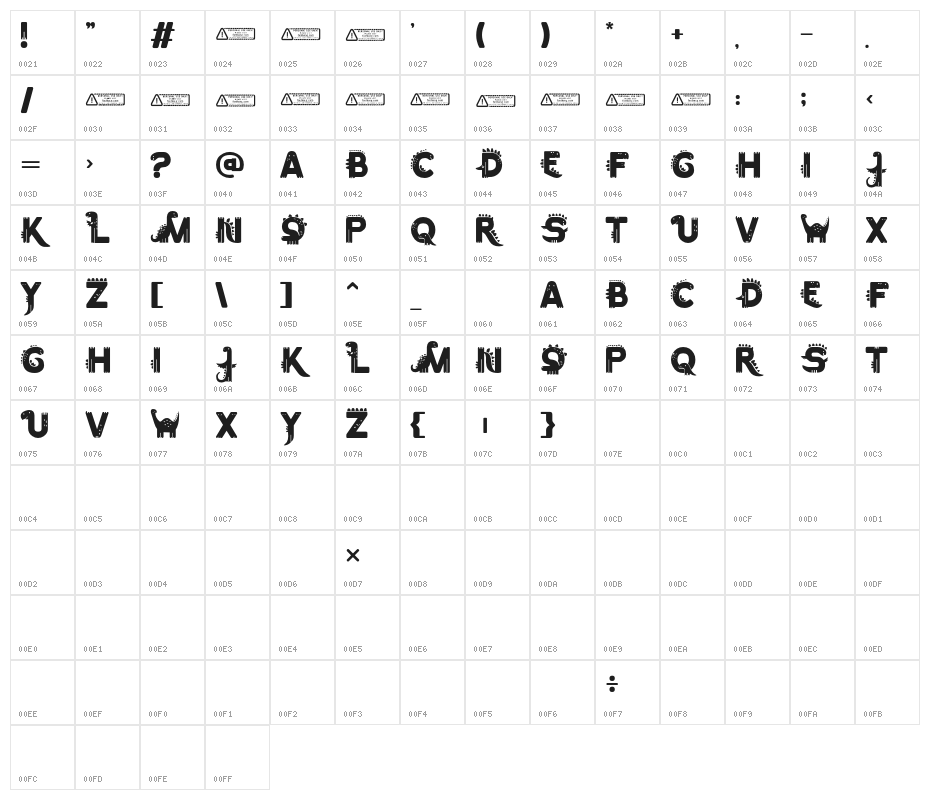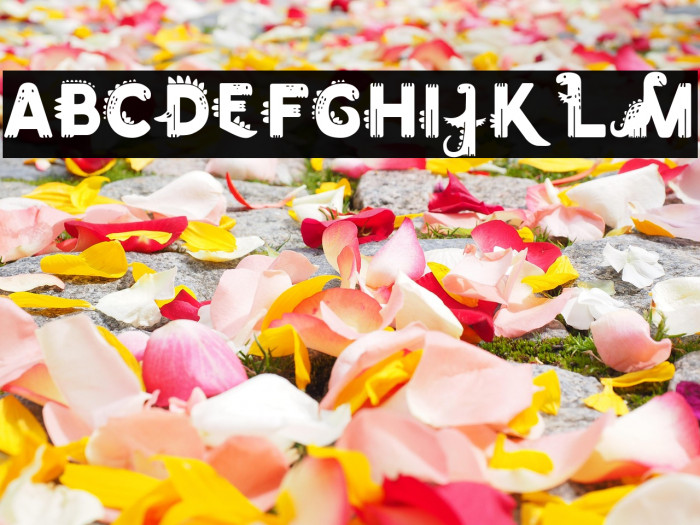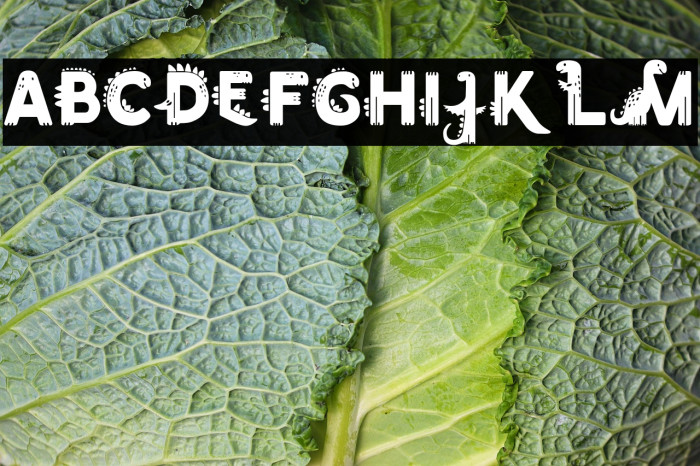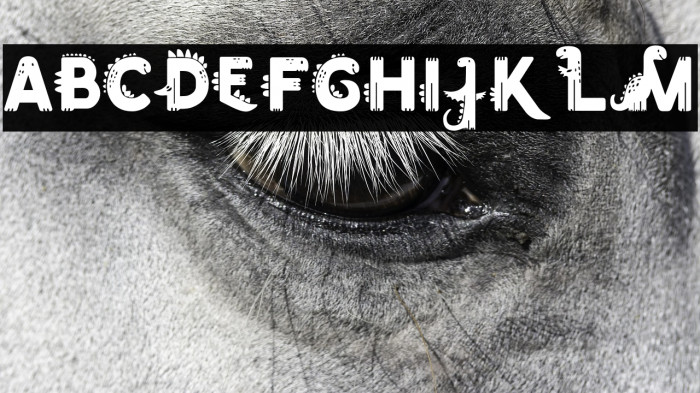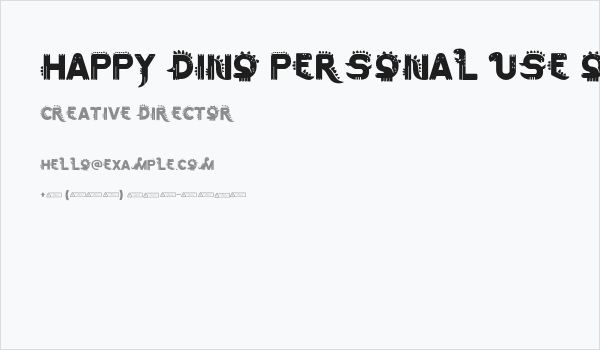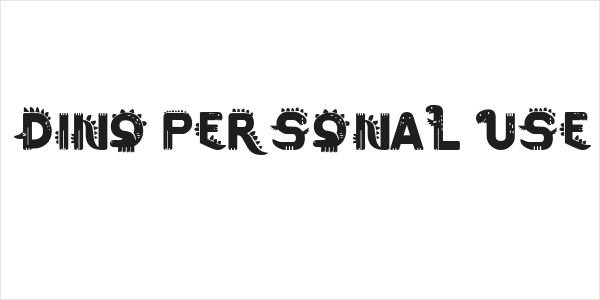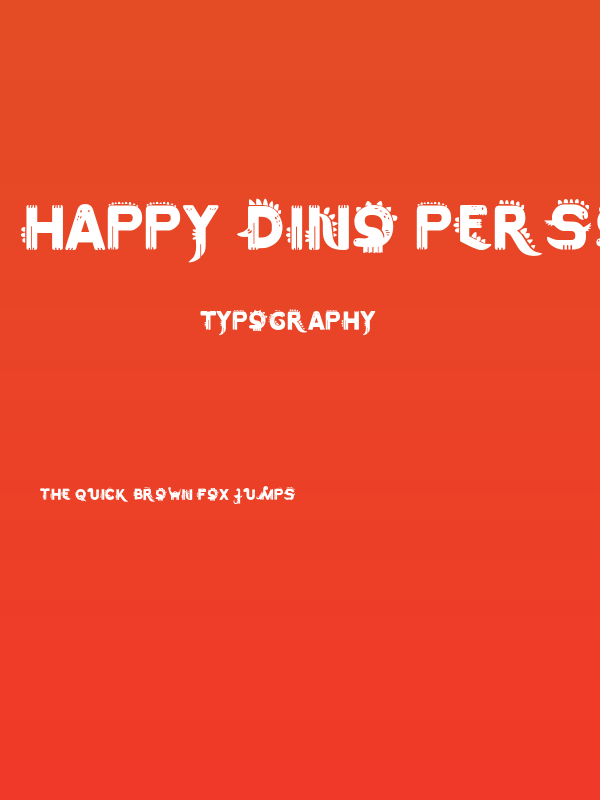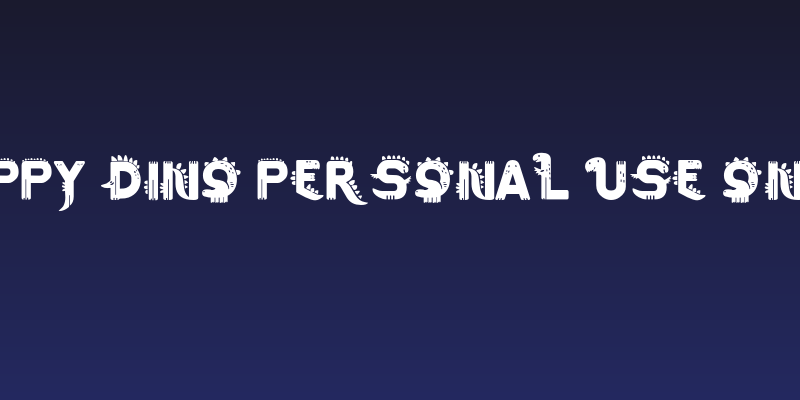
Happy Dino PERSONAL USE ONLY! Font
Happy Dino PERSONAL USE ONLY! Description
This playful and whimsical font features dinosaur-themed elements integrated into each character, creating a fun and engaging visual experience. The uppercase and lowercase letters are adorned with spikes, tails, and other dinosaur-like features, making it ideal for projects aimed at children or those seeking a lighthearted tone. The numbers and special characters maintain the same playful aesthetic, ensuring consistency across all text elements. The font's unique style captures attention and adds a sense of adventure and creativity to any design.
| Use Case | Headlines, Logos, Themed Designs |
| Proposed Projects | Ideal for children's books, educational materials, themed party invitations, and playful branding projects. |